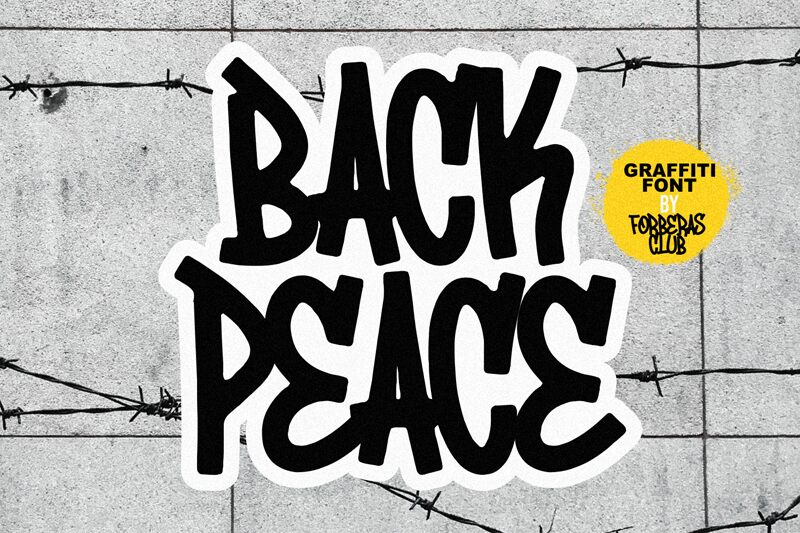
BackPeace
Back Peace font by Forberas Club is a graffiti style free font with condensed width. Expressive and artistic, it offers an impactful presence with its handcrafted feel and retro influence. Well-suited for creative contexts, Back Peace carries an aesthetic capable of catching the eye.
Use this typeface in branding designs, logos, packaging works, book covers, quotes overlays, headings/subheadings texts posters/advertising projects. Titles for blogs/website pages as background images as well as apparel designs are some other appropriate fields where this font can be used.